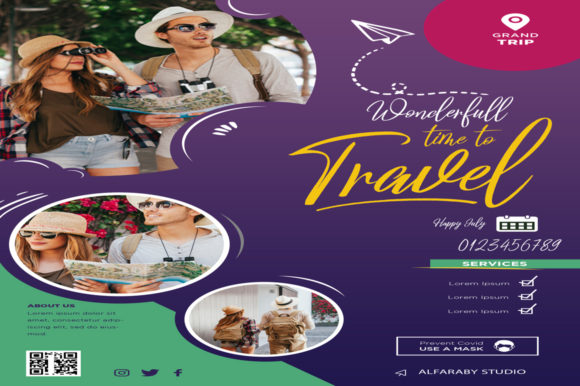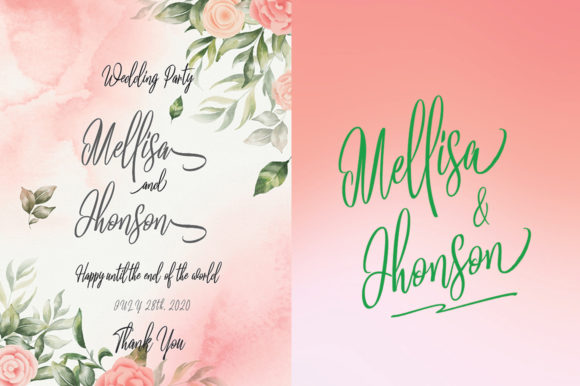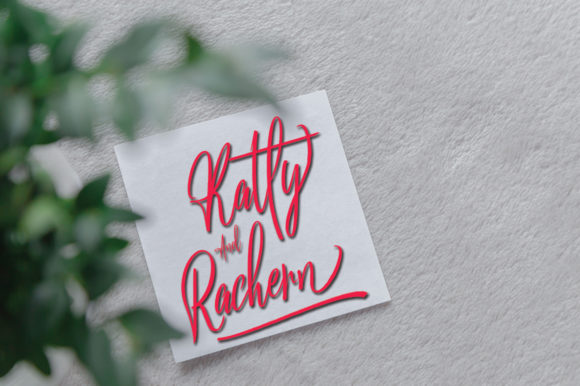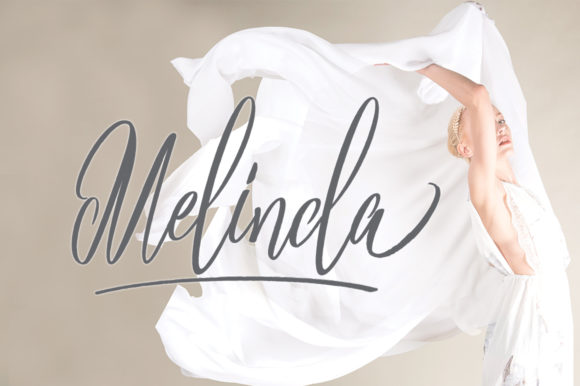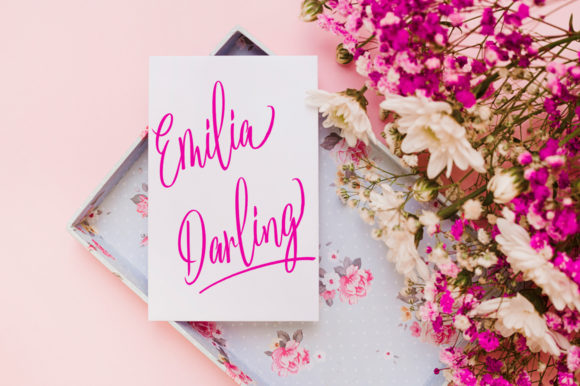
Discover the Elegance of Arshella Font: A Delicate Script Font for Your Designs
Are you looking for a font that adds a touch of elegance and class to your designs? Look no further than Arshella Font, a lovely and delicate script font that is sure to refresh and revitalize your creative projects. In this article, we’ll take a closer look at what makes Arshella so special and why it’s a must-have for designers and crafters alike.
The Beauty of Arshella Font
Arshella Font is a beautiful and refreshing script font that is perfect for adding a touch of sophistication to your designs. Its delicate lines and curves create a sense of elegance and refinement, making it ideal for a wide range of creative projects, from wedding invitations and stationery to branding and advertising materials.
One of the standout features of Arshella Font is its PUA (Private Use Area) encoding. This means that you can access all of the amazing glyphs and ligatures with ease, giving you even more creative possibilities. With Arshella, you can add intricate details and flourishes to your designs, taking them to the next level.
For those who may not be familiar, PUA encoding refers to a specific area of the Unicode character map that is reserved for private use. In the case of Arshella Font, this means that the font includes a range of additional characters, such as glyphs and ligatures, that can be accessed using specific keyboard shortcuts or software.
The benefits of PUA encoding are numerous. For one, it allows designers to access a wider range of characters and glyphs, giving them more creative freedom and flexibility. It also makes it easier to use and combine different fonts and styles, creating a more cohesive and polished look.
Who is Arshella Font for?
Arshella Font is perfect for designers, crafters, and anyone looking to add a touch of elegance and sophistication to their creative projects. Whether you’re working on a wedding invitation, a branding campaign, or a craft project, Arshella is sure to impress.
Some examples of projects that Arshella Font would be well-suited to include:
- Branding and advertising materials
- Craft projects, such as card making and scrapbooking
- Digital art and illustration
Arshella Font is a beautiful and delicate script font that is sure to add a touch of elegance and class to your designs. With its PUA encoding and range of glyphs and ligatures, it’s perfect for designers and crafters looking to take their creative projects to the next level.
- Lovely and delicate script font
- Perfect for wedding invitations, branding, and craft projects
- Elegant and sophisticated look